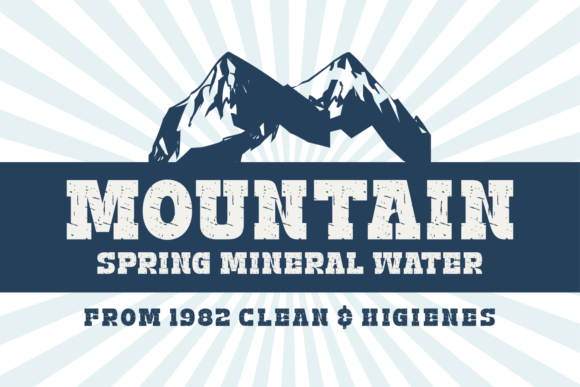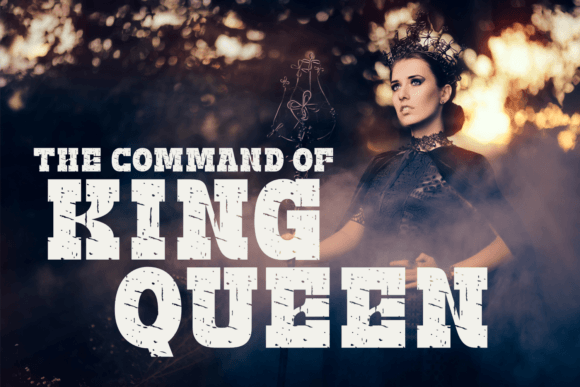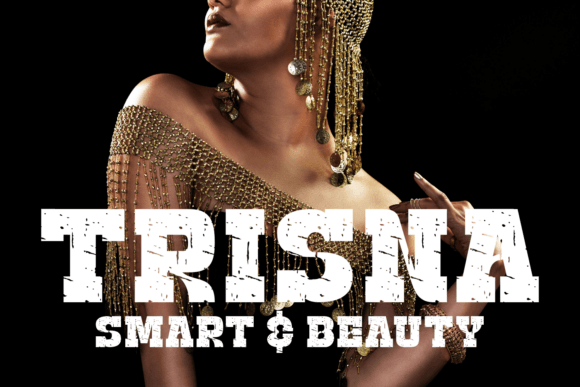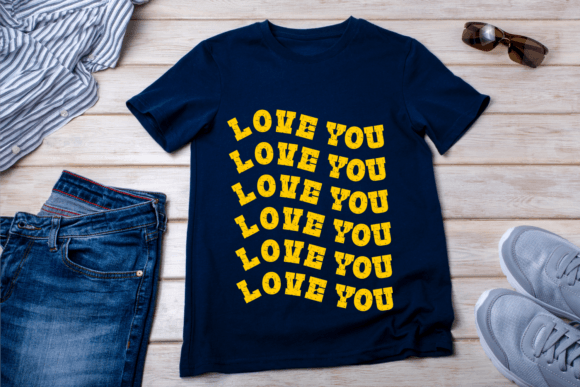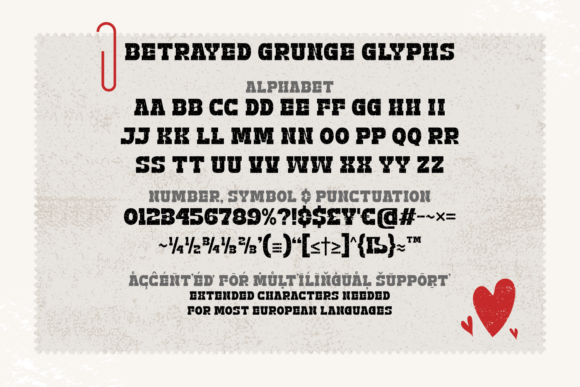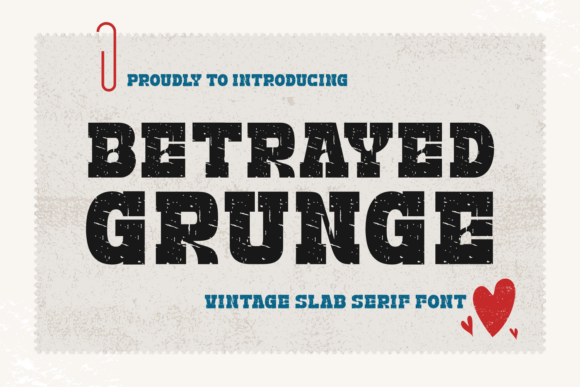
Unleash the Raw Power of Betrayed Grunge Font: A Designer’s Dream Come True
Are you a designer or craft looking for a font that embodies the essence of vintage and old-school aesthetics? Look no further than Betrayed Grunge, an attention-grabbing grunge typeface that is sure to elevate your designs to new creative heights. With its rugged yet bold typography, Betrayed Grunge is the perfect choice for design themes that require a gritty, authentic flair.
The Birth of Betrayed Grunge: A Story of Creative Rebellion
Betrayed Grunge was intentionally created for designers who crave a font that breaks free from the constraints of traditional typography. This font is a masterful blend of artfully designed grunge scratches and sharp detailing, resulting in a perfect paradox of raw and edgy allure. With Betrayed Grunge, you can add a touch of rebelliousness to your designs, making them stand out in a crowded digital landscape.
Exploring the Visually Intriguing Realm of Betrayed Grunge
When you immerse yourself in the world of Betrayed Grunge, you’ll discover a typography that converges the past and present in a unique and captivating way. This font is not just a tool for designers; it’s an experience that invites you to push the boundaries of creativity. With Betrayed Grunge, you can:
- Create stunning posters, flyers, and brochures that demand attention
- Design eye-catching logos and branding materials that exude a gritty, authentic vibe
- Develop cinematic experiences that transport your audience to new worlds
- Craft compelling social media graphics that stand out in a crowded feed
The Art of Betrayed Grunge: A Perfect Balance of Form and Function
Betrayed Grunge boasts a rugged yet bold typography that is both visually striking and highly legible. The font’s artfully designed grunge scratches and sharp detailing create a perfect balance of form and function, making it suitable for a wide range of design applications. Whether you’re working on a bold headline or a subtle caption, Betrayed Grunge adapts seamlessly to your design needs.
Why Betrayed Grunge Stands Out from the Crowd
In a world where fonts are a dime a dozen, Betrayed Grunge surprisingly stands out from the crowd. Here are just a few reasons why:
- Unique aesthetic: Betrayed Grunge offers a distinctive blend of grunge scratches and sharp detailing that sets it apart from other fonts.
- Versatility: This font can be used for a wide range of design applications, from posters and flyers to logos and branding materials.
- Attention-grabbing: Betrayed Grunge is designed to demand attention, making it perfect for designers who want to create stunning visuals that leave a lasting impression.
Getting Started with Betrayed Grunge: Tips and Tricks
Ready to unleash the raw power of Betrayed Grunge in your designs? Here are some tips and tricks to get you started:
- Experiment with different weights: Betrayed Grunge comes in various weights, allowing you to add nuance and depth to your designs.
- Play with textures: Combine Betrayed Grunge with different textures and patterns to add an extra layer of visual interest.
- Keep it simple: Don’t be afraid to use Betrayed Grunge as a bold headline or title font – its simplicity and legibility make it perfect for large text sizes.
Conclusion: Elevate Your Designs with Betrayed Grunge
In conclusion, Betrayed Grunge is more than just a font – it’s a design experience that invites you to push the boundaries of creativity. With its rugged yet bold typography, artfully designed grunge scratches, and sharp detailing, Betrayed Grunge is the perfect choice for designers and crafters who crave a gritty, authentic aesthetic. So why wait? Immerse yourself in the raw and edgy allure of Betrayed Grunge and take your designs to new creative heights.